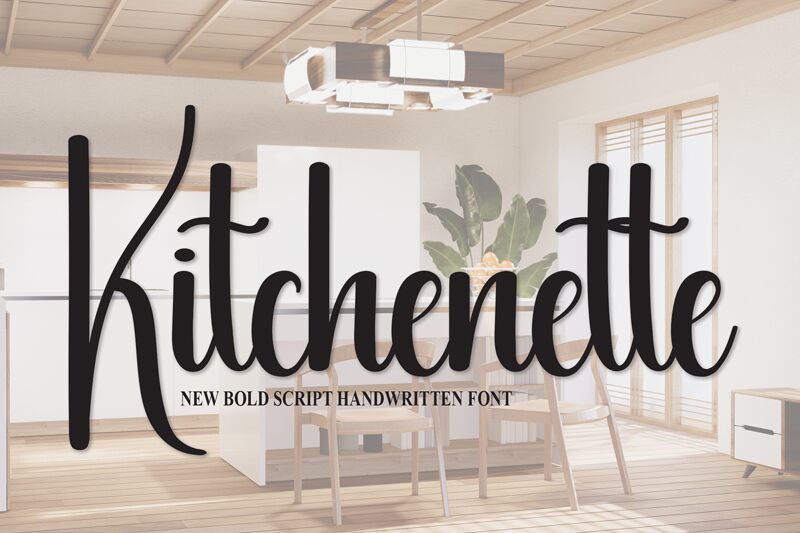
Kitchenette
Kitchenette, a creation by Scratchones, is a font that exudes charm with its handwritten style and intimate feel. Its condensed form adds a touch of elegance and efficiency to the script, making every character seem carefully crafted and purposeful. The gentle curves resemble personal notes or thoughtful inscriptions, inviting a sense of warmth into any project.
Perfect for branding projects, packaging design, or invitations where personality is paramount, Kitchenette can transform ordinary text into an engaging message with its aesthetic appeal. Its style lends itself to creative ventures that benefit from a handmade touch, suggesting authenticity and craftsmanship in every stroke.